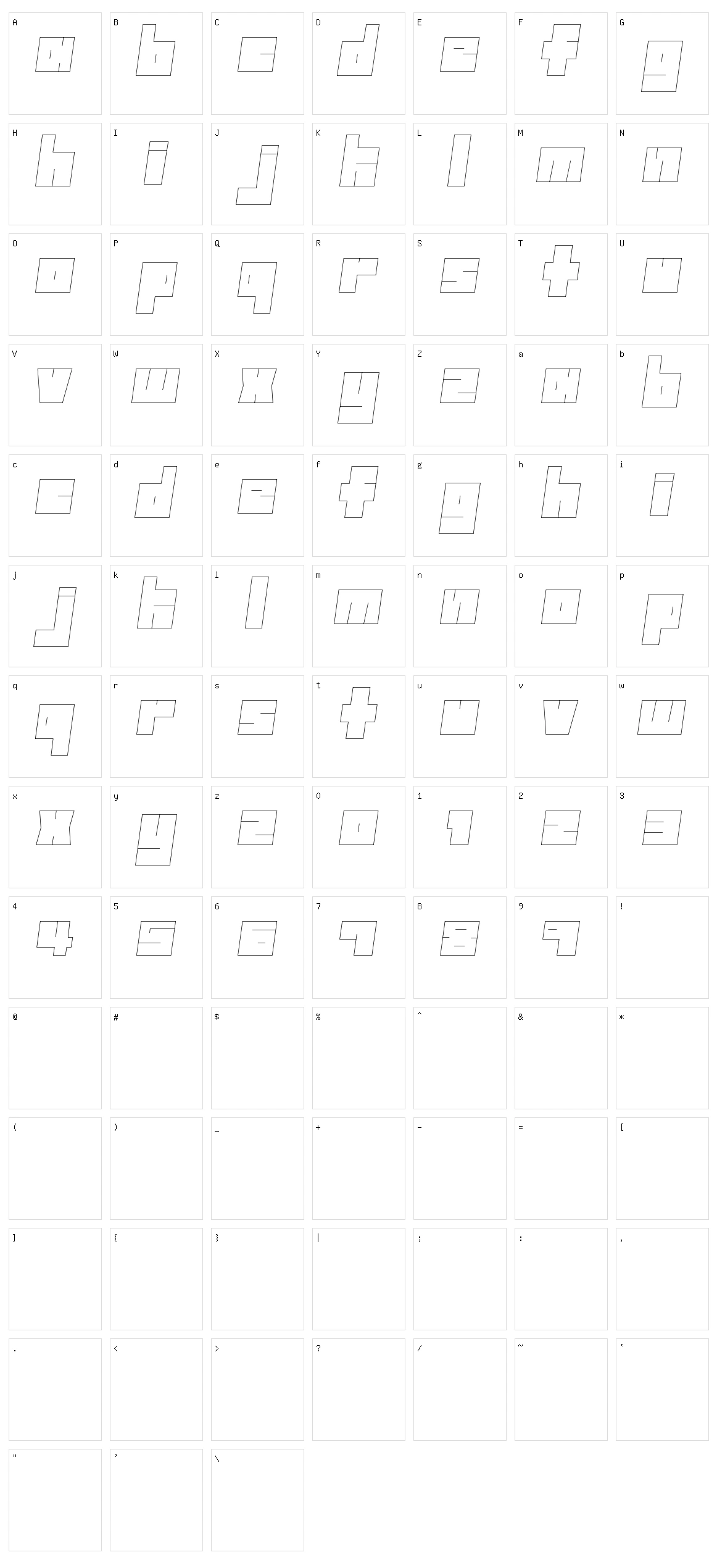
The free font Freeze is carefully designed by Kerrin Fernandez, showcasing a thoughtful balance of creativity and usability and falls under the Square font style. When you download the ZIP file, it contains only 3.9 KB of font files, making it lightweight and quick to download. Please review the license details below to understand permitted usage and distribution rights. If license information is not available, we recommend using this font for personal projects only or contacting the author directly for commercial usage permissions.